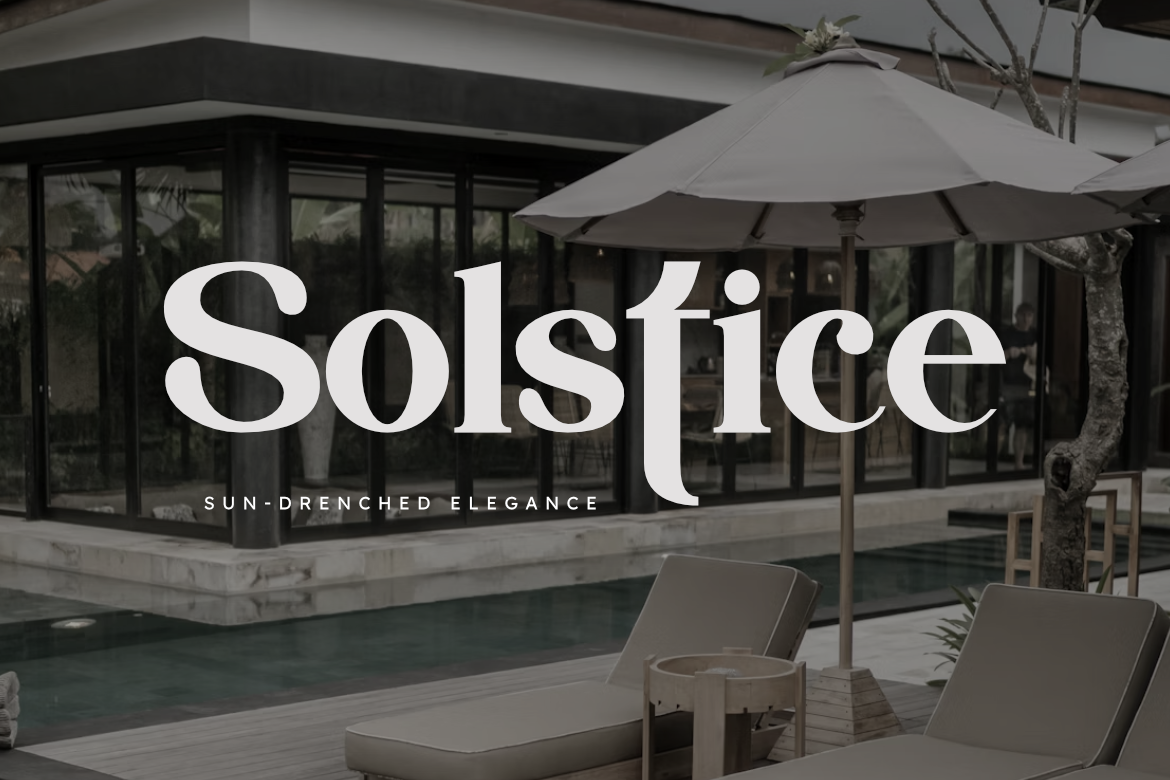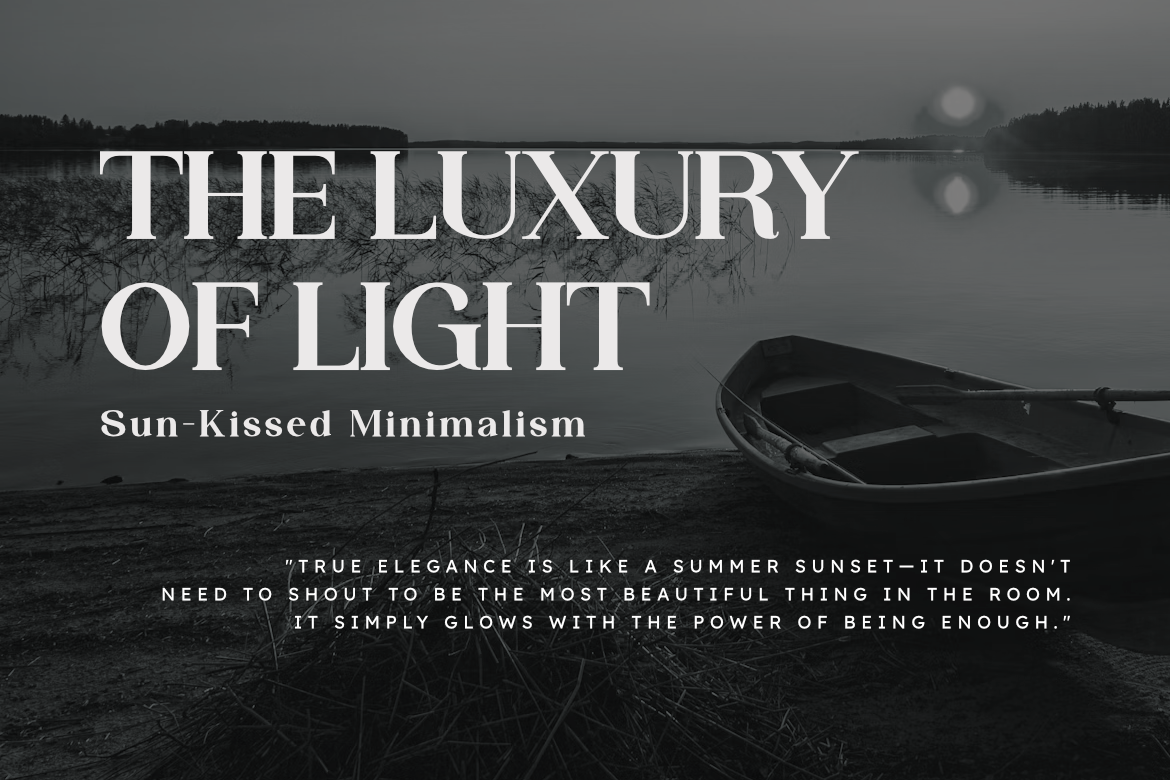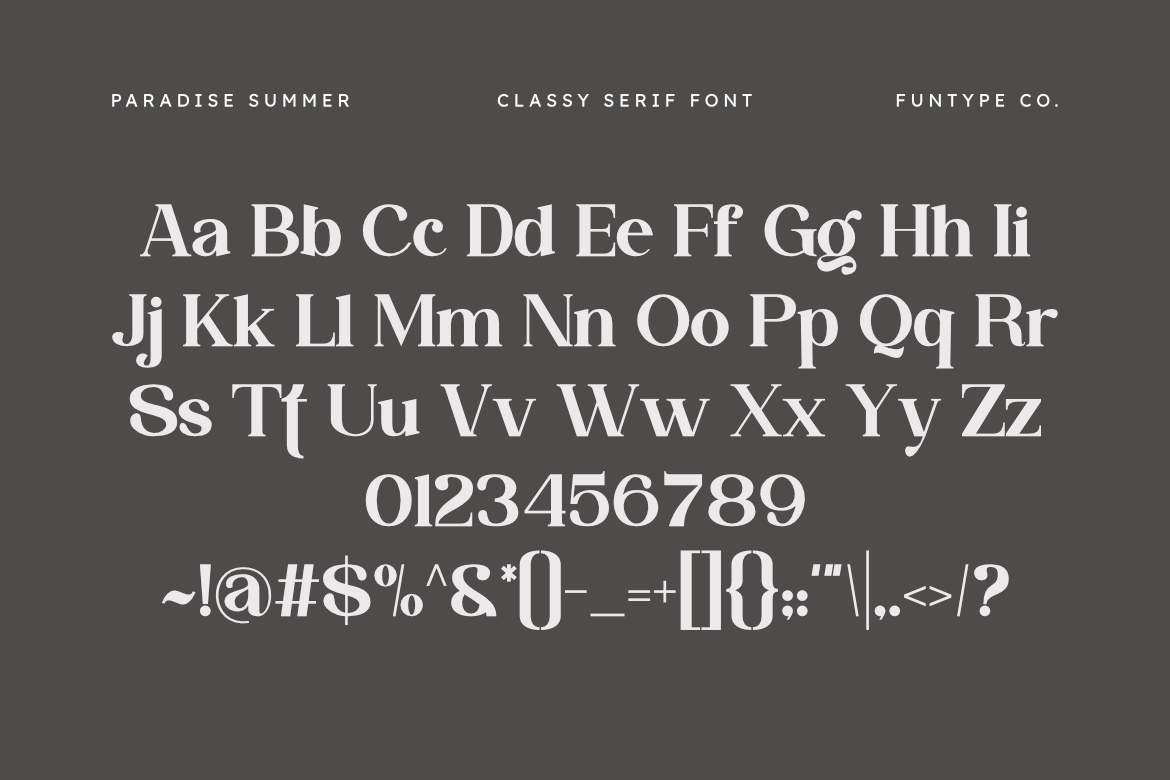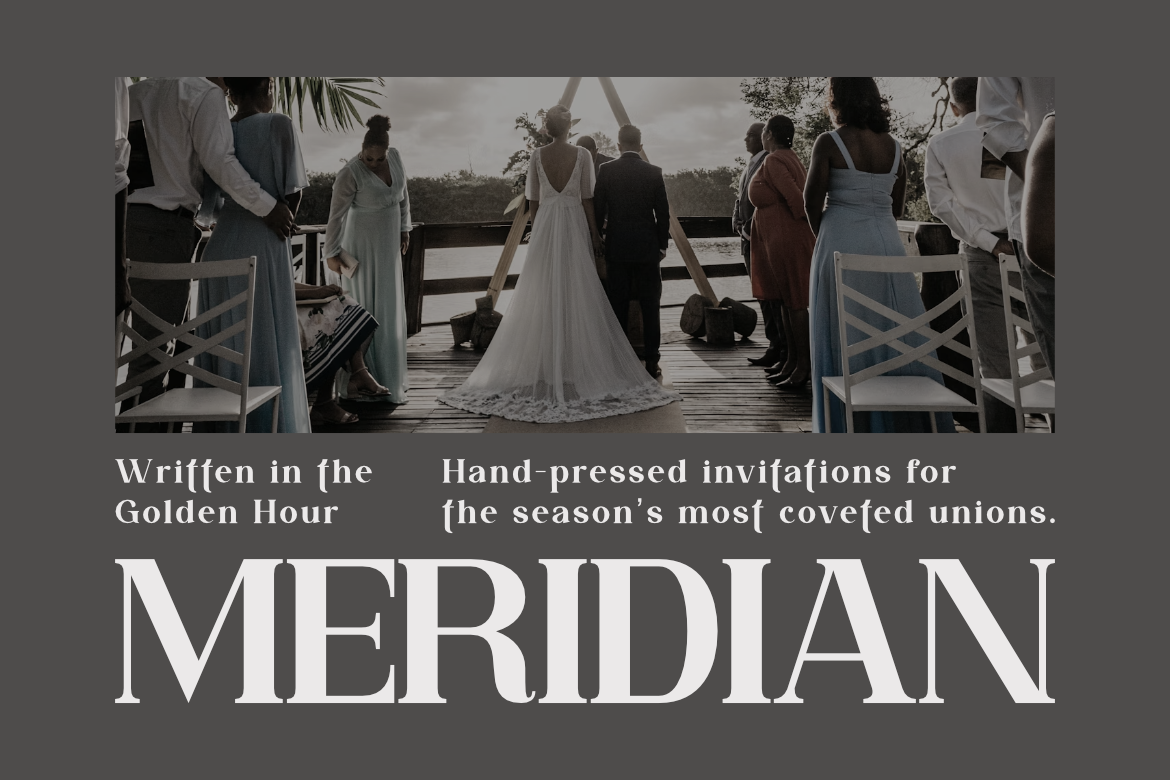
Paradise Summer
Paradise Summer – Classy Serif Font for Fashion Brand Identity
Paradise Summer is a sophisticated and classy serif font, thoughtfully designed to capture the essence of high-end charm and contemporary storytelling. With its balanced curves and clean structure, Paradise Summer offers a professional aesthetic that brings a touch of refined authority to any creative project.
This font is the ideal choice for designers looking to add a professional yet high-impact touch to their work. Whether you are crafting a striking lifestyle brand identity, a sleek fashion logo, or elegant editorial layouts, Paradise Summer provides a seamless blend of timeless class and modern power.
- Classy Serif Design: Optimized for a clean, sophisticated, and professional look.
- Refined Letterforms: Meticulously crafted for superior legibility and a high-end feel.
- Commanding Presence: Perfect for headlines, logos, and large-scale digital displays.
- Professional Aesthetic: High-end finish for modern fashion, beauty, and premium branding.
Best Used For: Luxury branding, fashion magazines, tropical lifestyle marketing, wedding invitations, social media identity, and impactful packaging design.